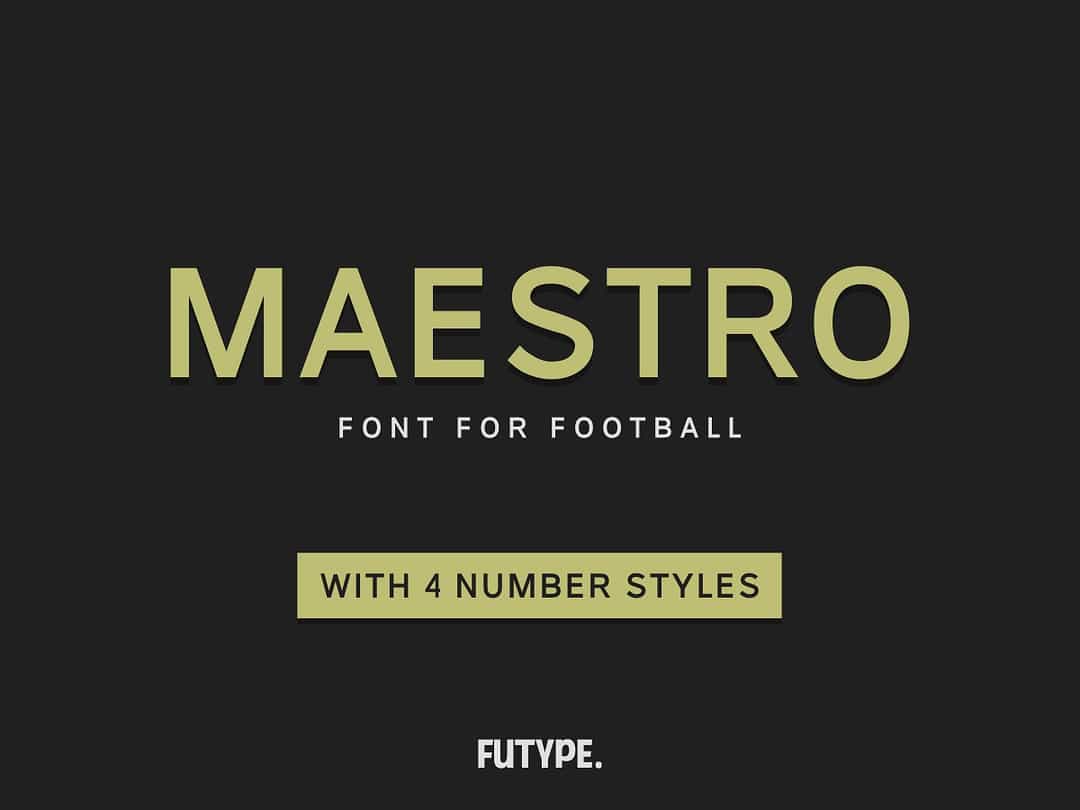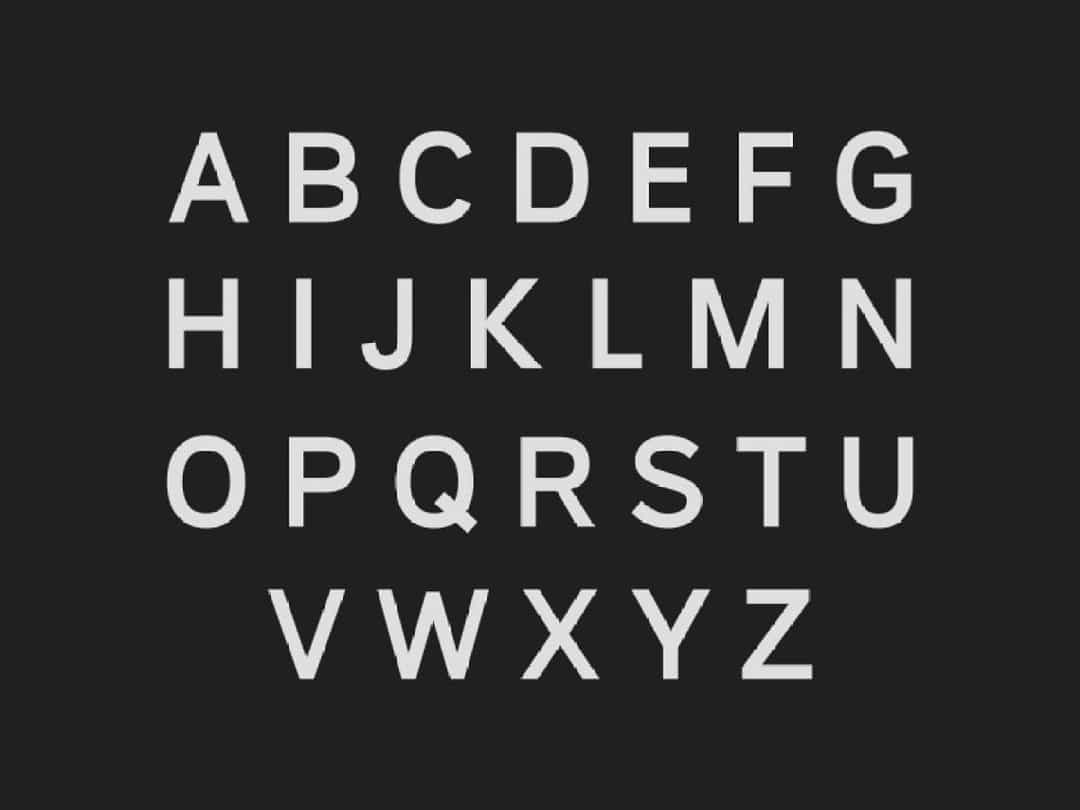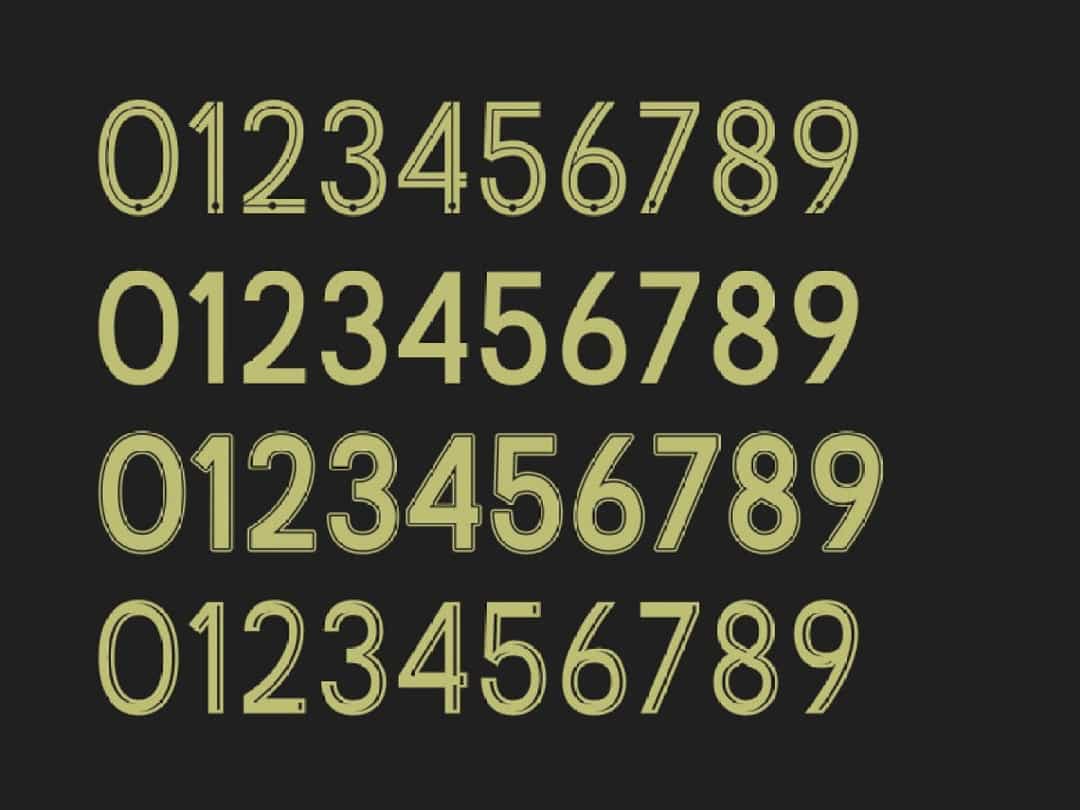
Maestro was designed specifically to be used on soccer/football jerseys or any number of sports apparel, although its versatile nature makes it suitable for other uses as well. Utilizing sans serif font as its foundation also makes this font suitable.